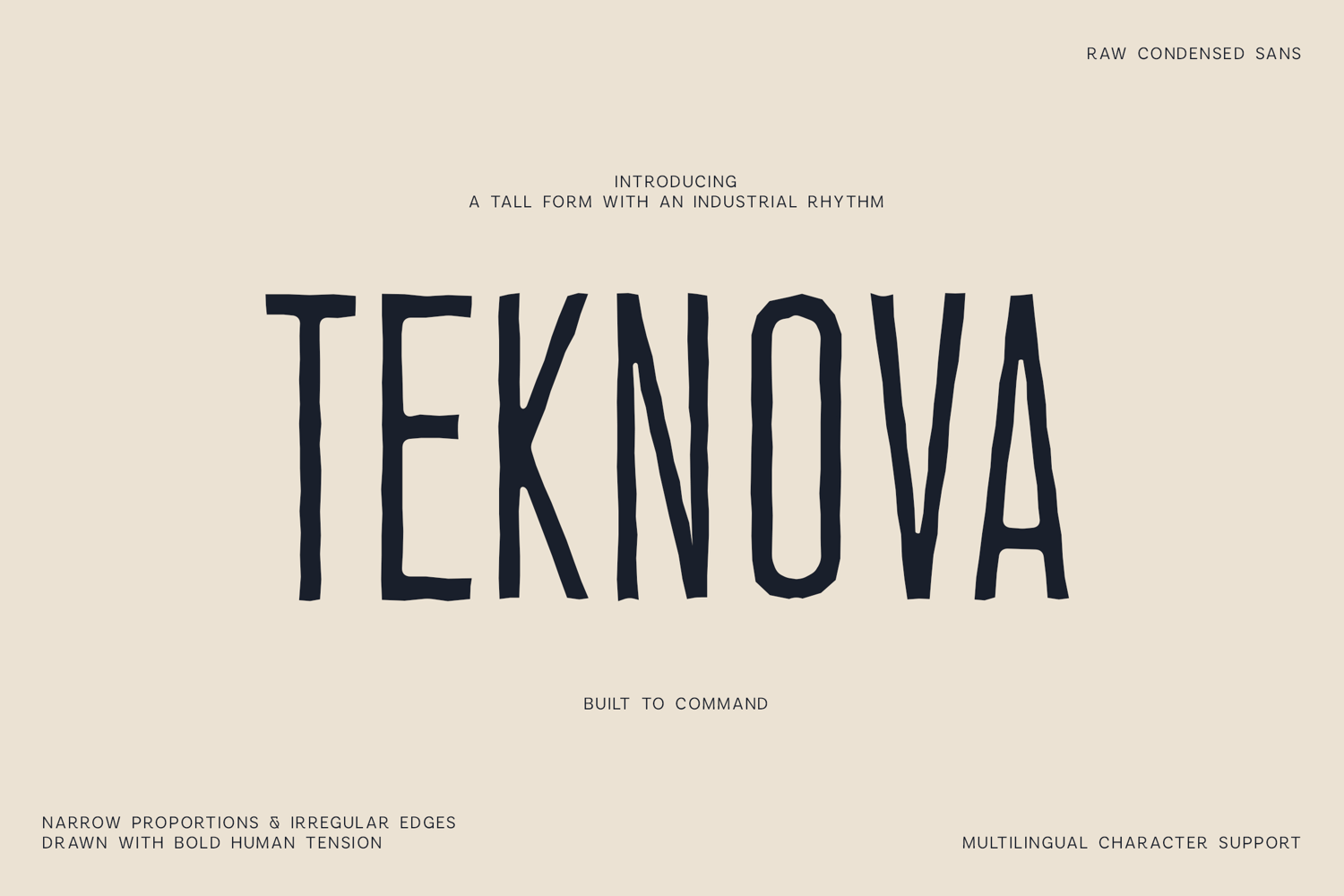
Teknova Narrow Display Font for Bold Headlines
Give your typography height, character and an unconventional edge with Teknova, a narrow display font designed around tall proportions and naturally irregular letterforms.
Its compressed width makes Teknova especially effective when space is limited but the typography still needs to dominate the composition. The elongated characters create an instantly recognizable silhouette, while uneven edges add a subtle handmade quality.
Unlike a perfectly geometric condensed sans serif, Teknova keeps visible human tension throughout its forms. This gives headlines and short phrases a more individual, crafted appearance.
The narrow display font is well suited to:
- Bold headlines
- Poster typography
- Logo design
- Product labels
- Packaging
- Signs
- Editorial layouts
- Book and magazine covers
- Promotional graphics
- Brand identities
- Uppercase letters
- Lowercase letters
- Numbers
- Punctuation and symbols
- Extended accented characters
- Multilingual Latin support
Teknova is particularly effective at large sizes, where its tall construction and unusual details become a prominent part of the design.
Use this narrow display font when your project needs strong typography without the width of a traditional headline face.